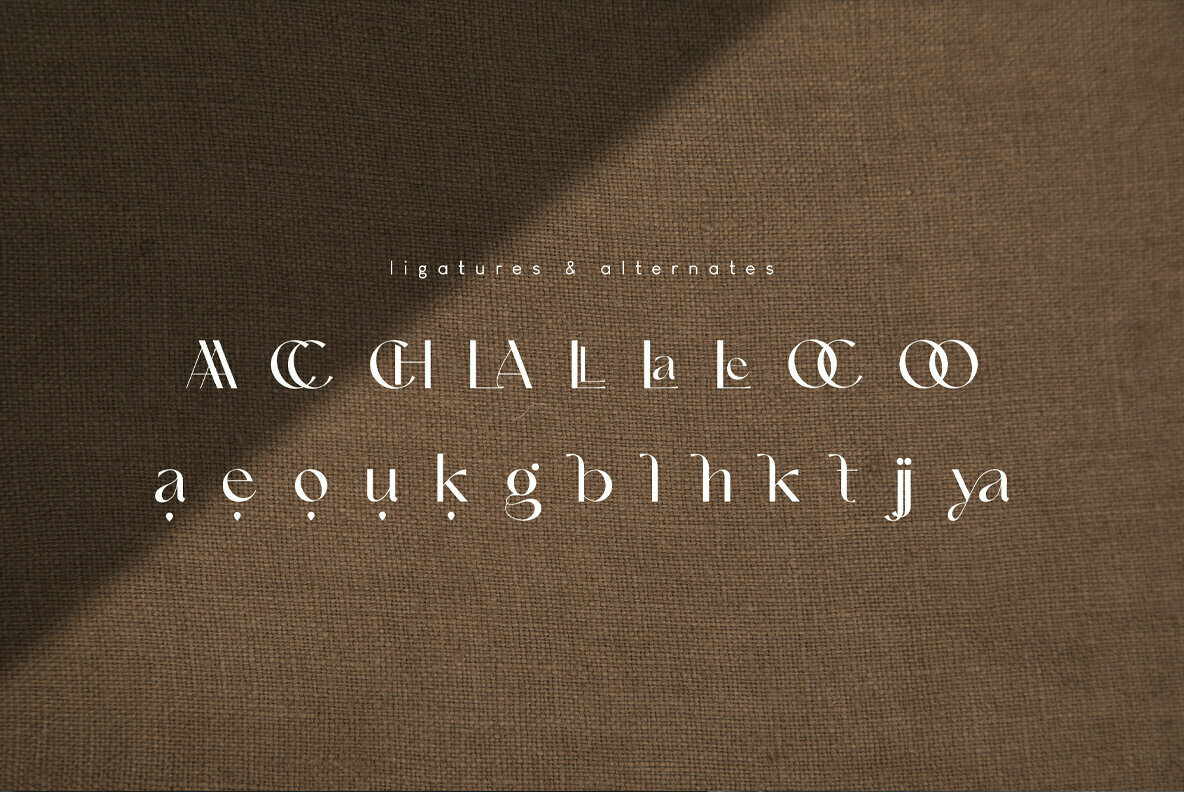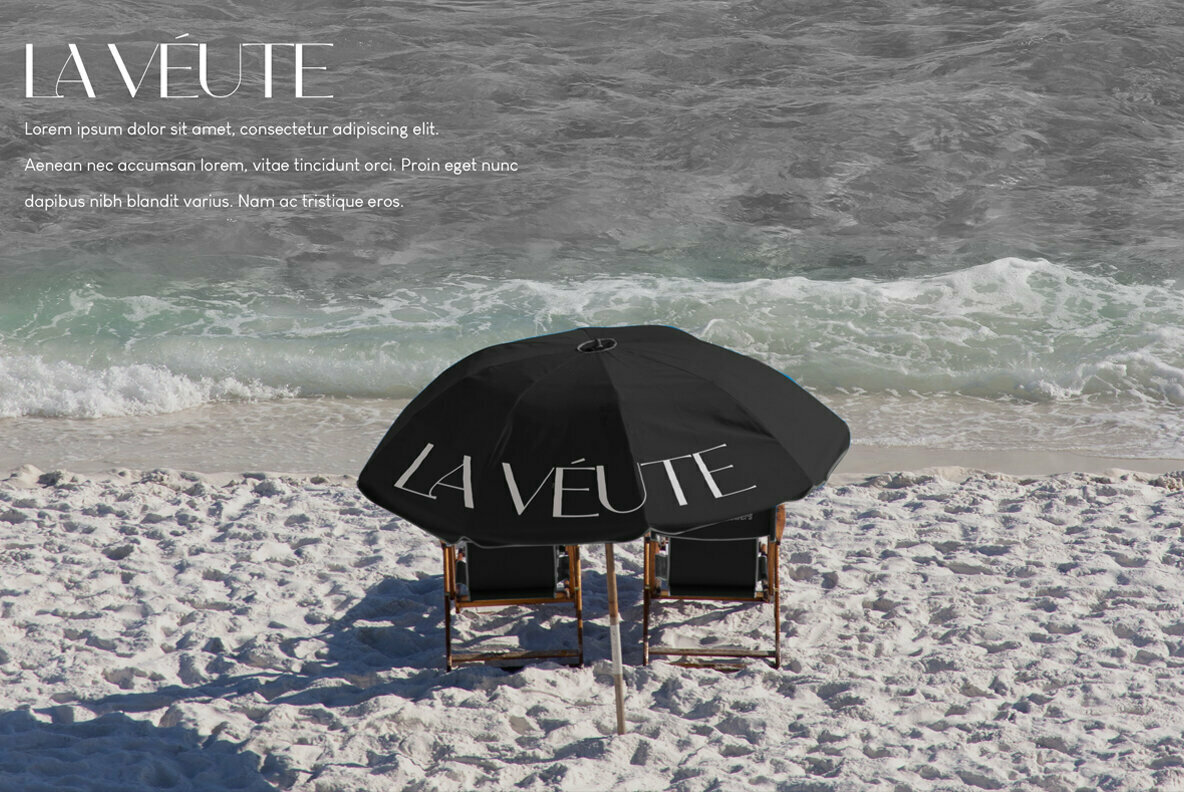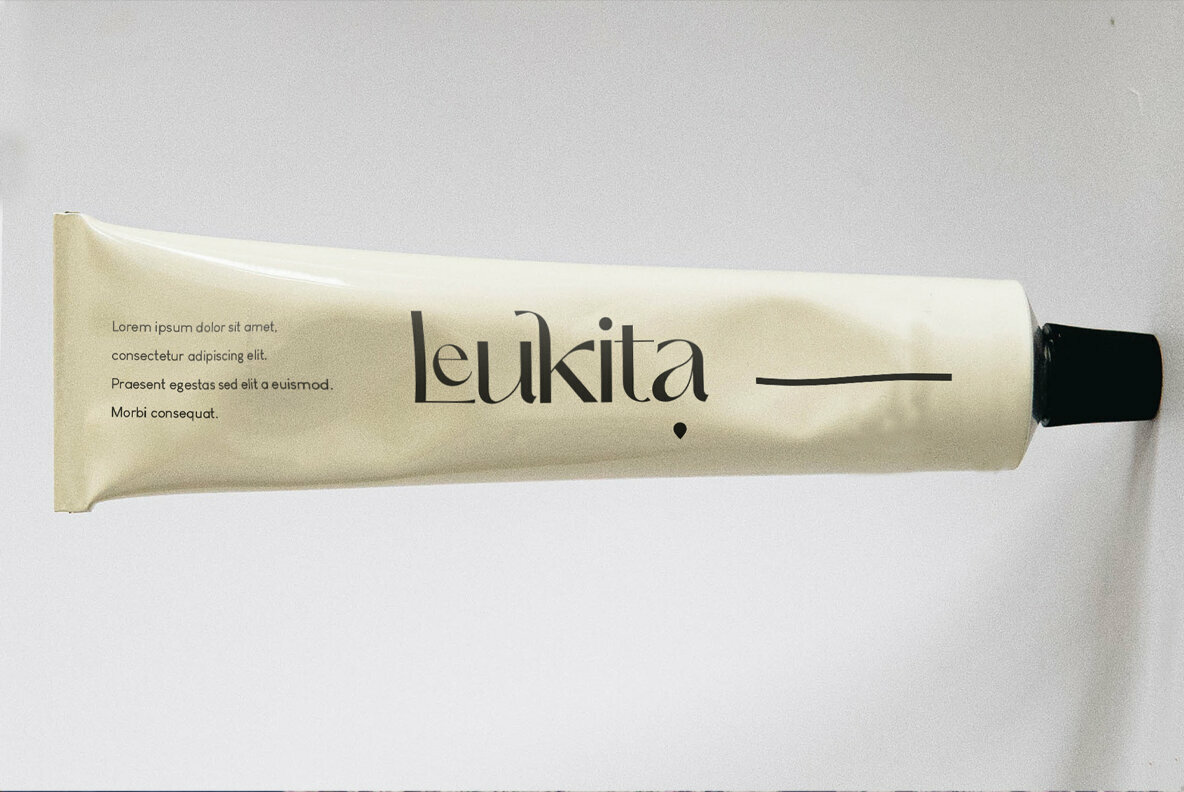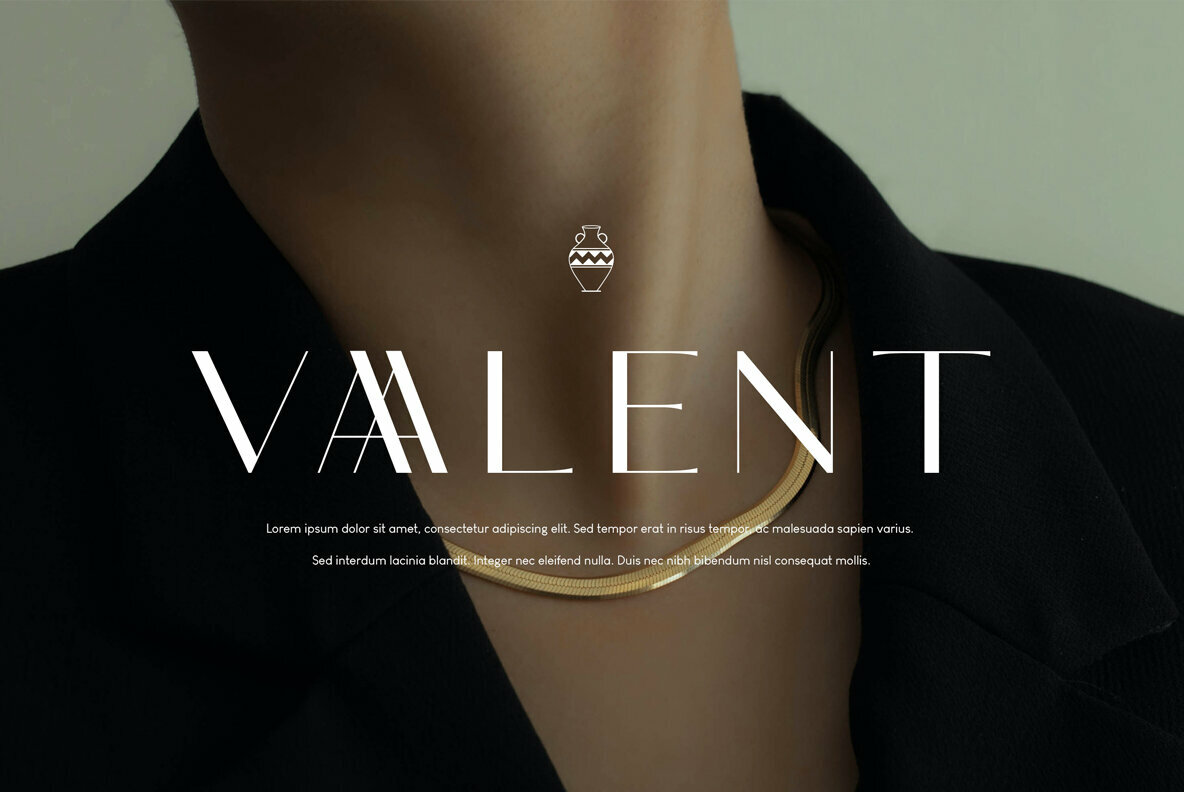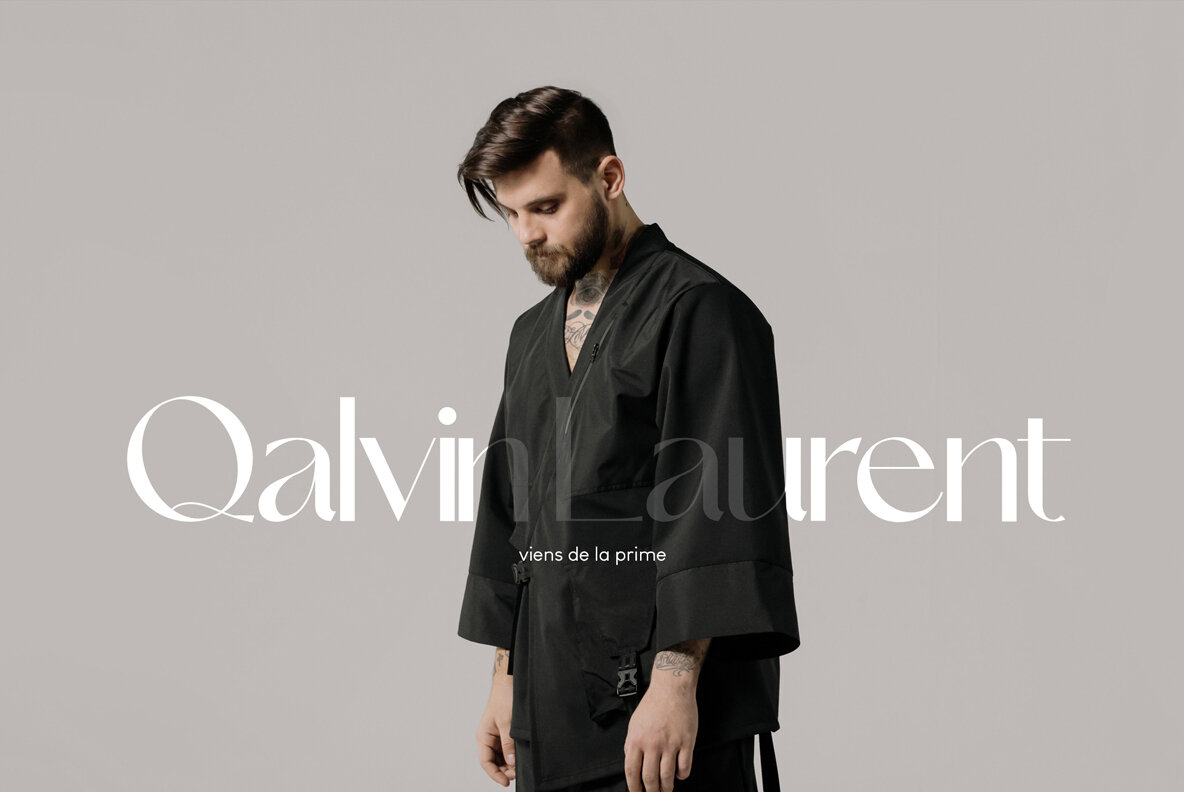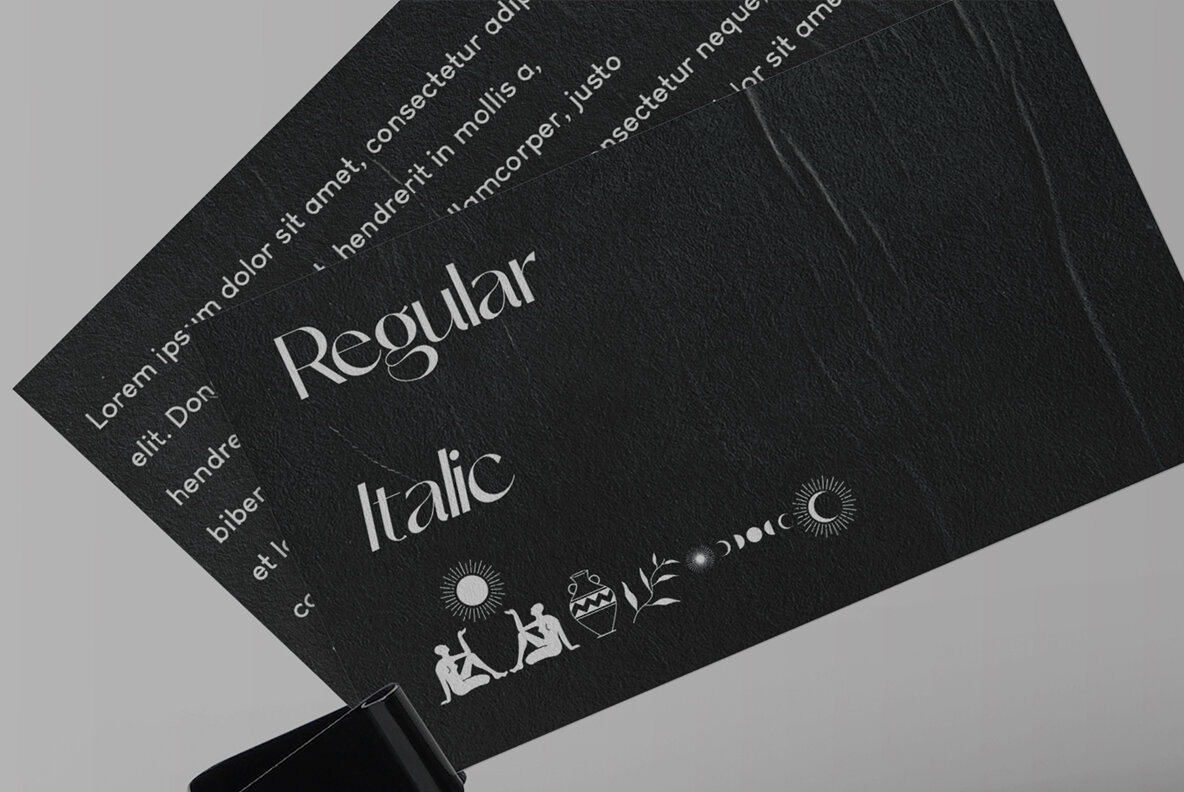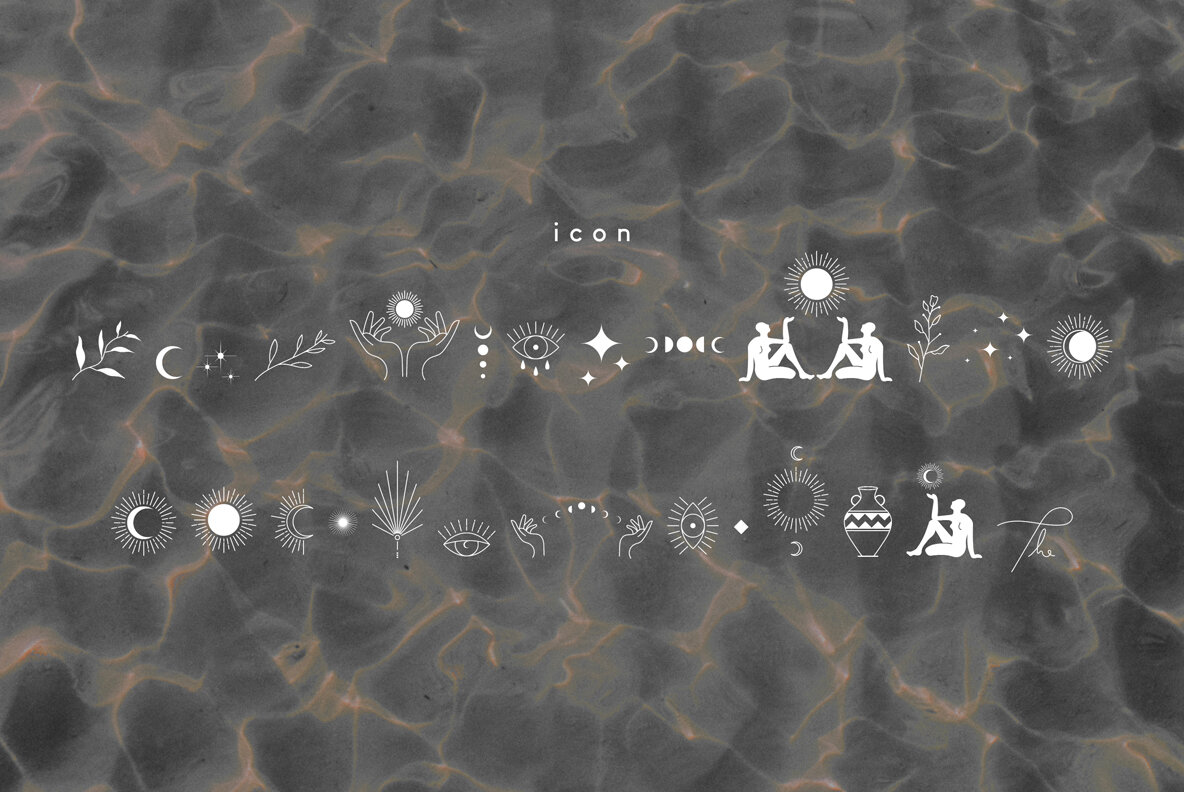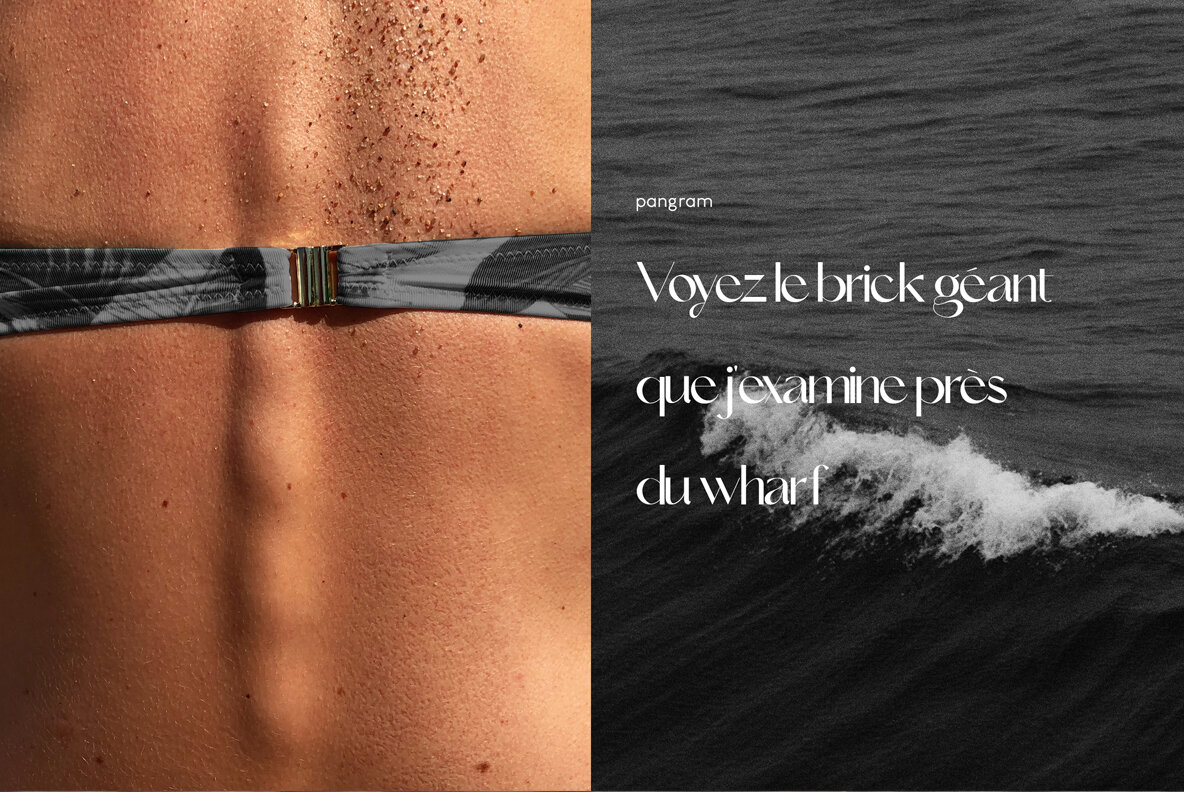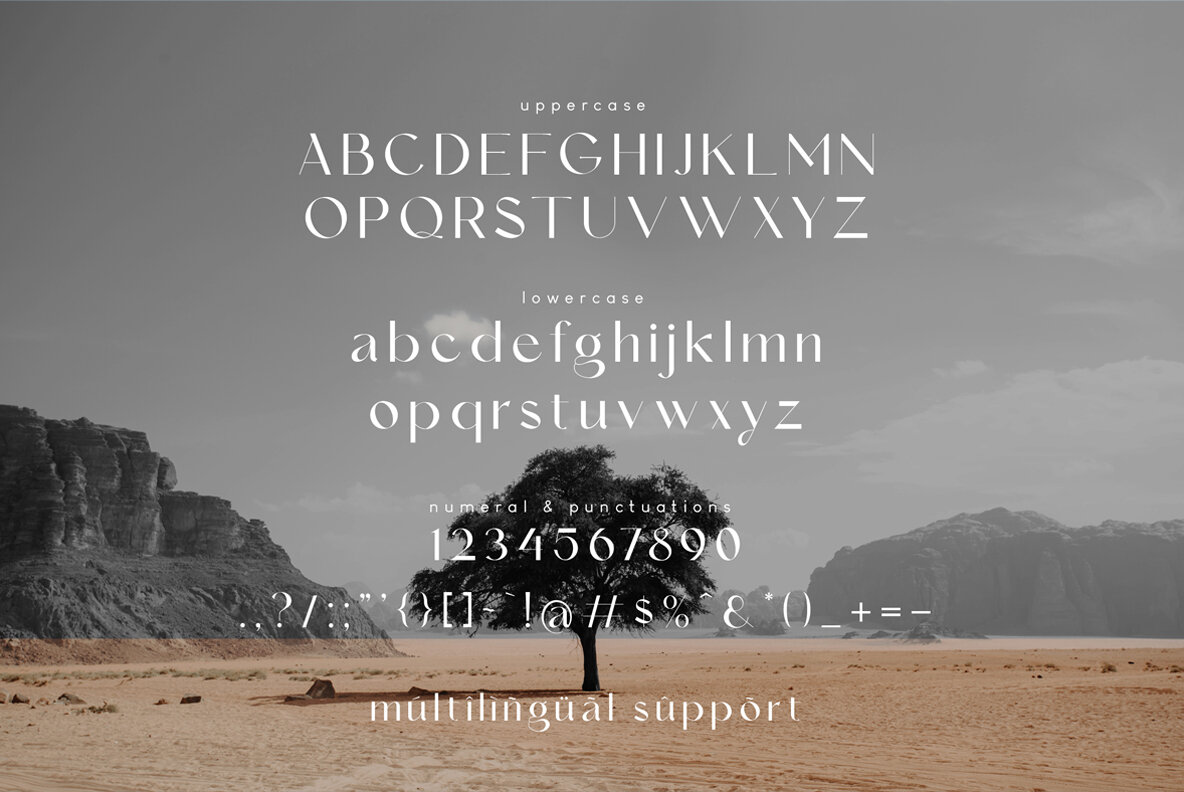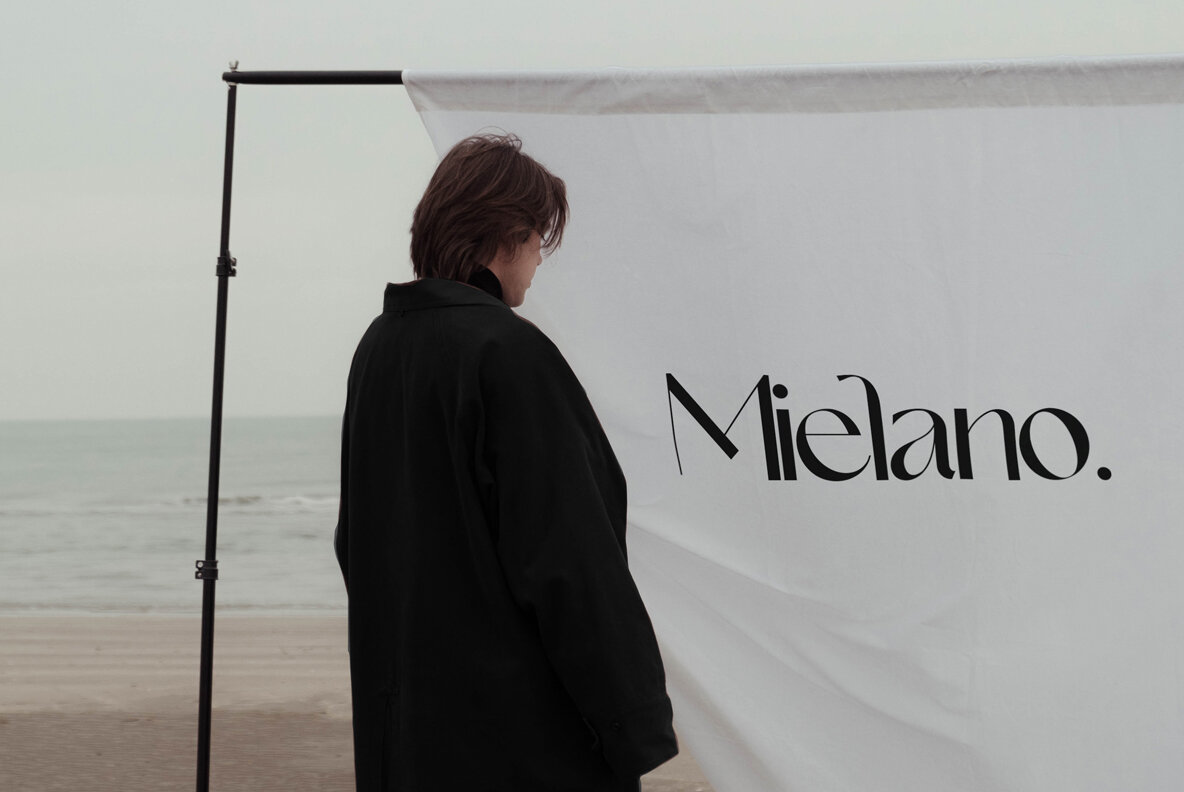
Le Amatcky Font
Le Amatcky is elegant sans serif font that look aesthetic. Perfect for Logo brand, advertisement, product packaging, social media post, clothing brand, magazine headers and many more complete with
- ligatures
- alternates
- regular
- italic
- icon
- kerning
- multilingual support